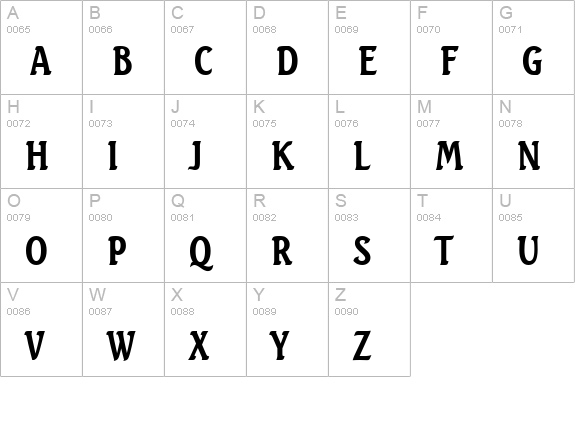
Beach Condensed Bold Font Details
Beach Condensed Bold is a strong, high-contrast, condensed-width variant in the Beach typeface family \xE2\x80\x94 well suited to headlines, attention-grabbing titles, and strong calls-to-action.
Introducing Beach Condensed Bold font, a sleek and modern typeface that exudes confidence and sophistication. With its bold and condensed design, this font is perfect for making a statement in headlines, titles, or branding projects. The strong lines and sharp edges of Beach Condensed Bold command attention and convey a sense of strength and power. But the best part? Beach Condensed Bold is available for free download at FontsMarket.com! That's right, you can easily add this striking font to your design arsenal without breaking the bank. Whether you're working on a poster, website, logo, or any other project that calls for a bold touch, Beach Condensed Bold has got you covered. Download it today and elevate your designs with this versatile and eye-catching typeface.